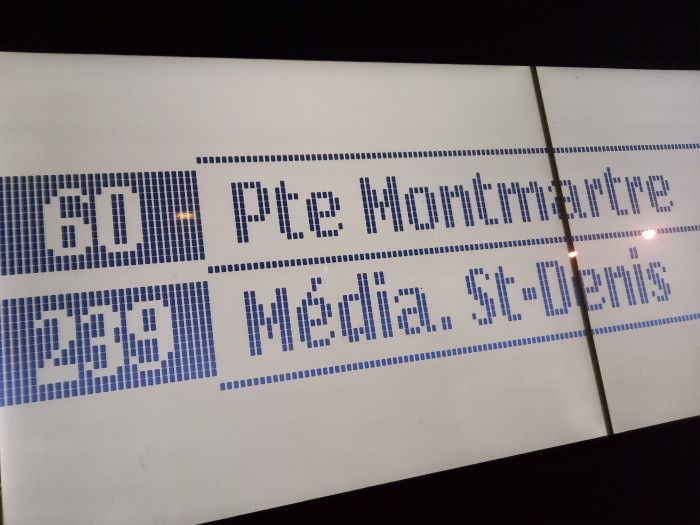
Digitisation of the cell-based typeface on older Parisian bus stop screens. No kerning since the original displays don't have any.
Light version: Abribus B